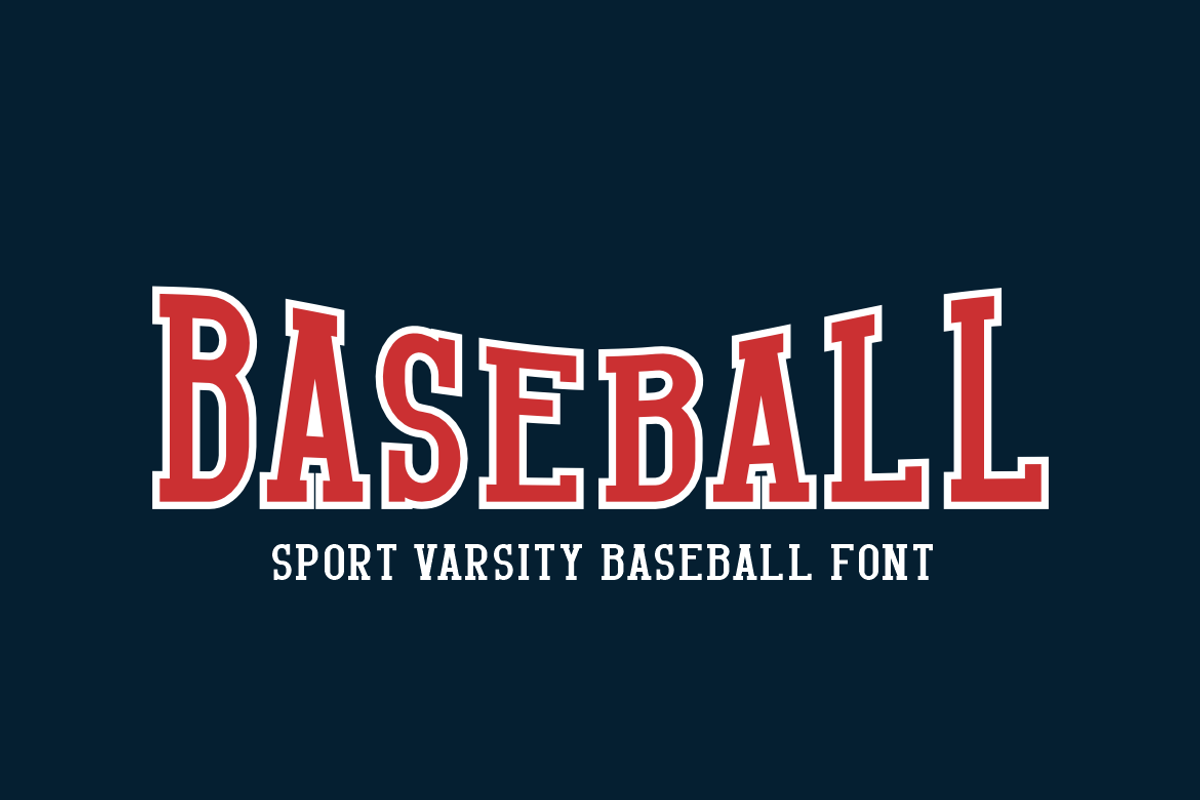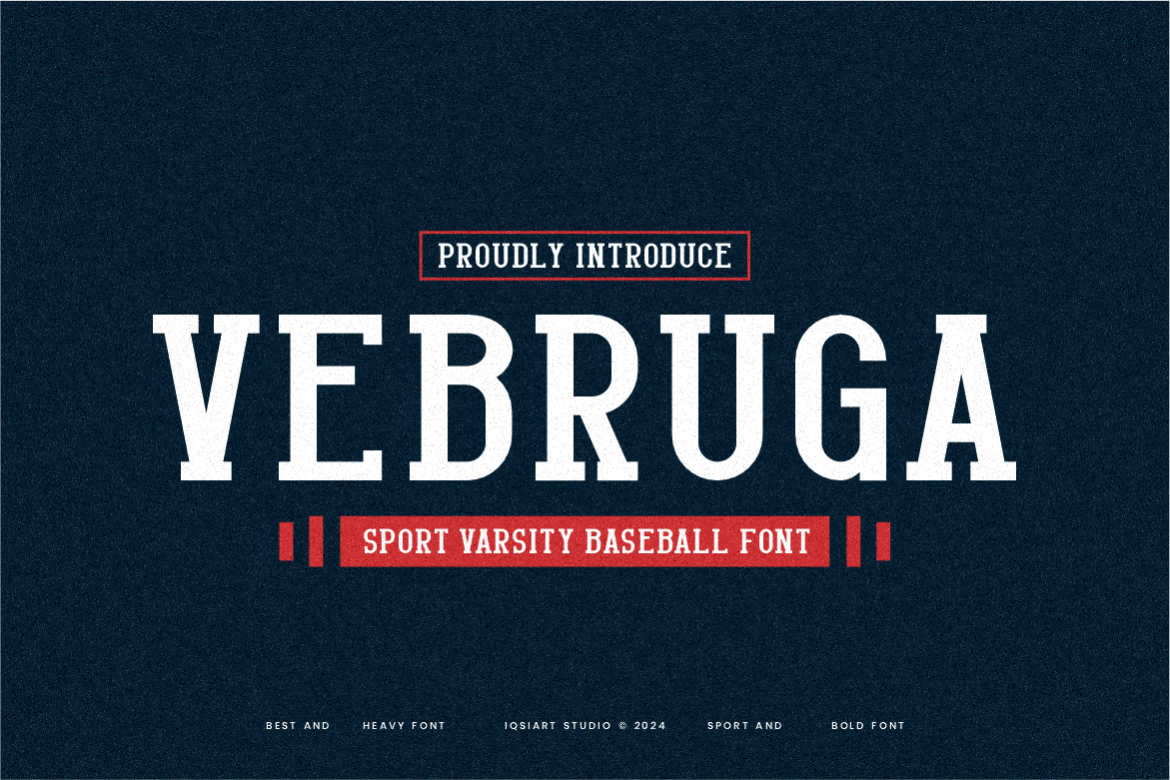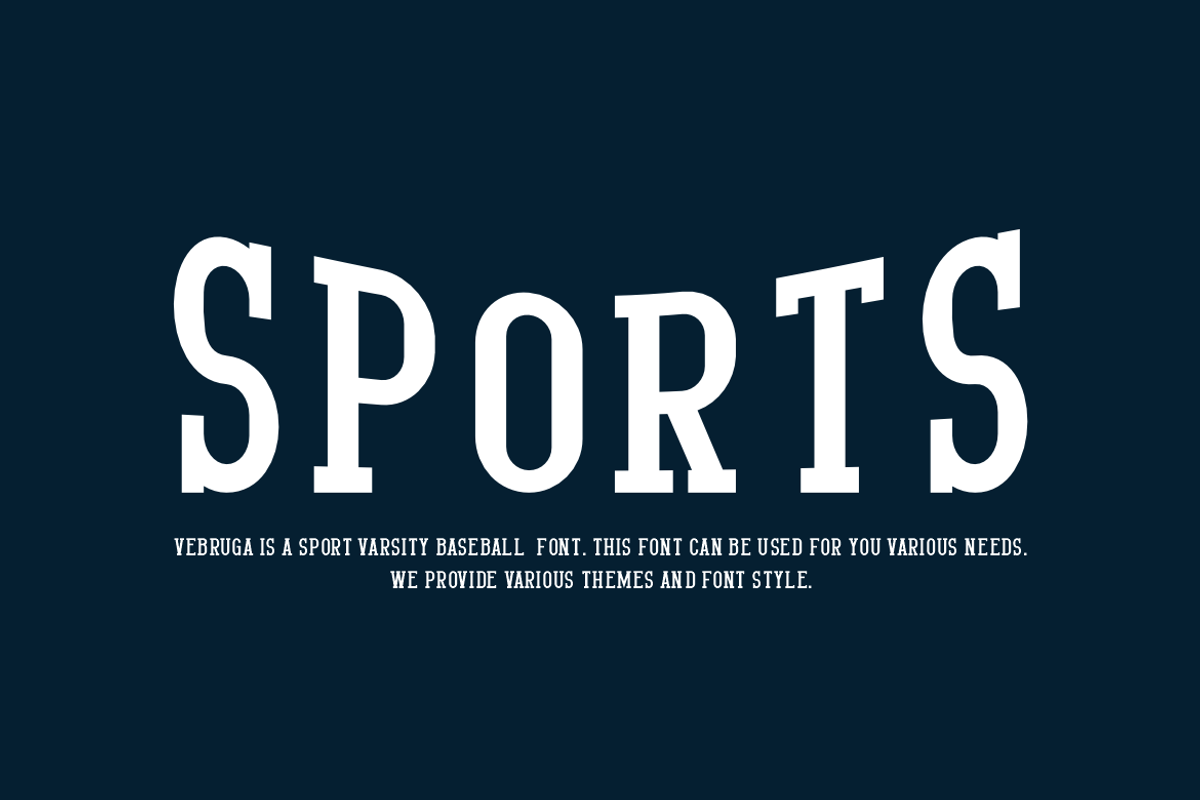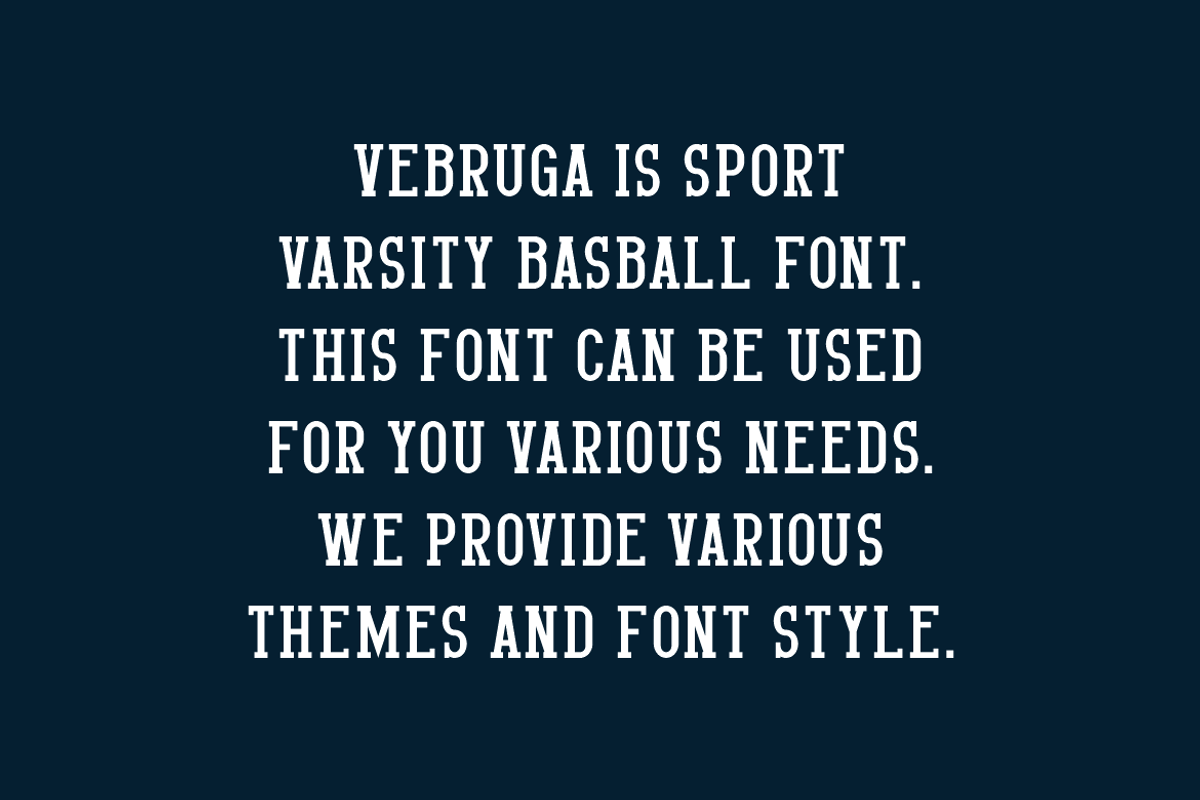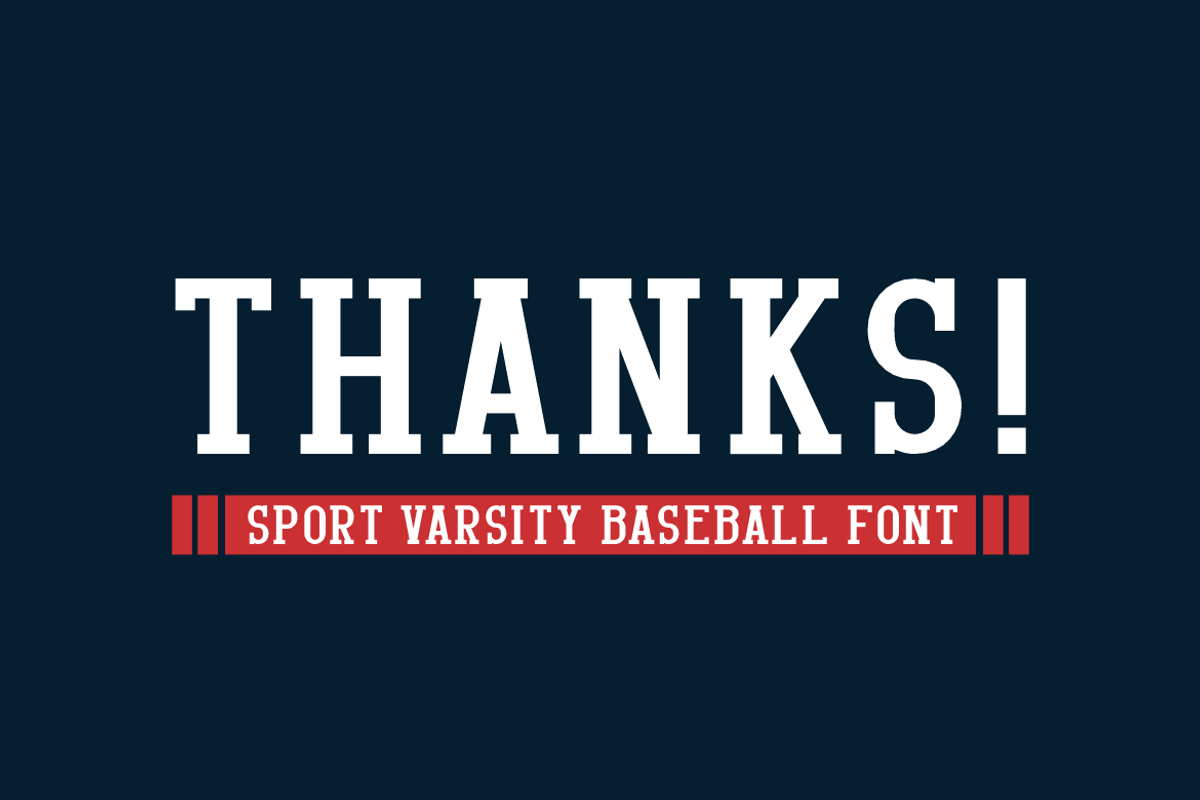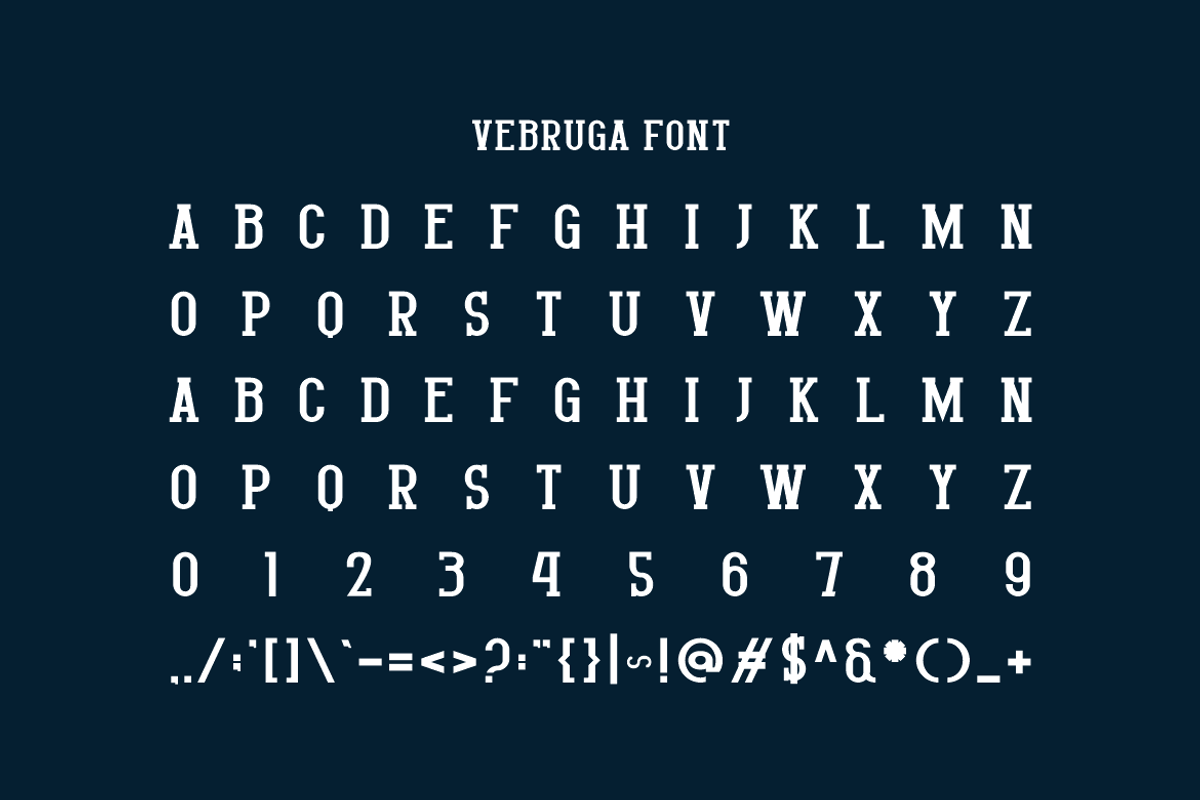
Vebruga - Varsity Font
Vebruga Font is a best and authentic display font. This font can be used for your various needs. We provide various themes and font styles. visit our profile to get a wide variety of themes and different font styles you need.